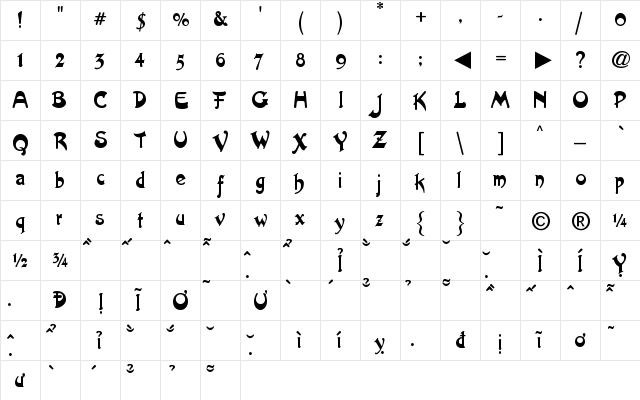
HP-Artistik Regular
Design Context for HP-Artistik Typeface
HP-Artistik is a composed and adaptable typeface that performs quietly and consistently across a wide range of design contexts.